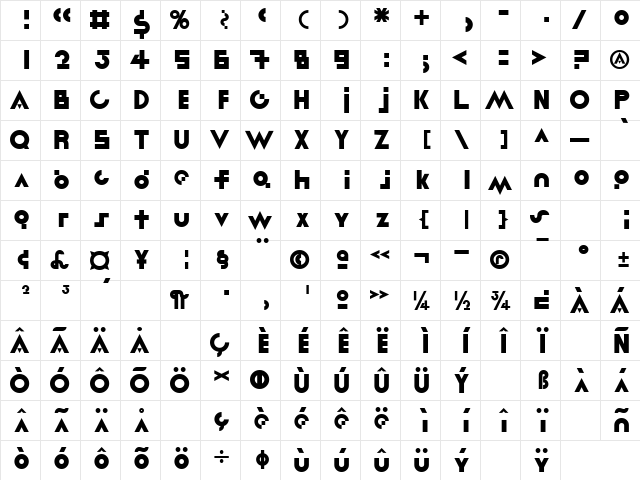
LTReneeDisplay Types Regular Font Preview
LTReneeDisplay Types Regular
LTReneeDisplay Types Regular Font Details
Design Context for LTReneeDisplay Types Typeface
LTReneeDisplay Types is built around its visual character rather than neutral utility — its distinctive forms are designed to make an impression at display sizes.
Font Pairing: Pair with a clean neutral sans-serif for body copy to let LTReneeDisplay Types's character lead without overwhelming the composition.
Pro Tip: Use LTReneeDisplay Types exclusively at display sizes — it was designed to be seen, not read at length. Let a neutral companion handle body copy.